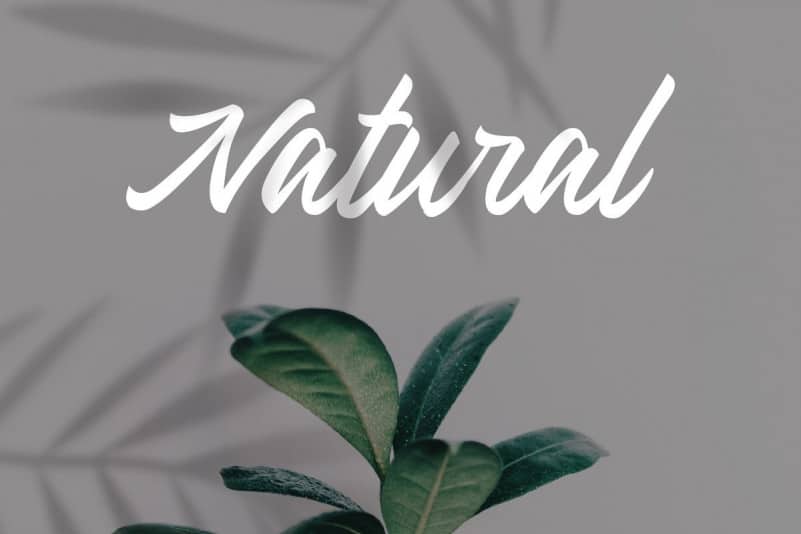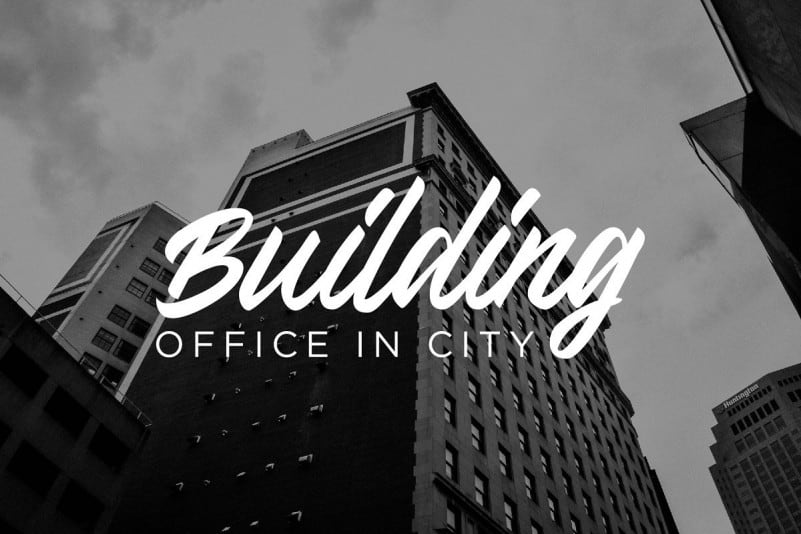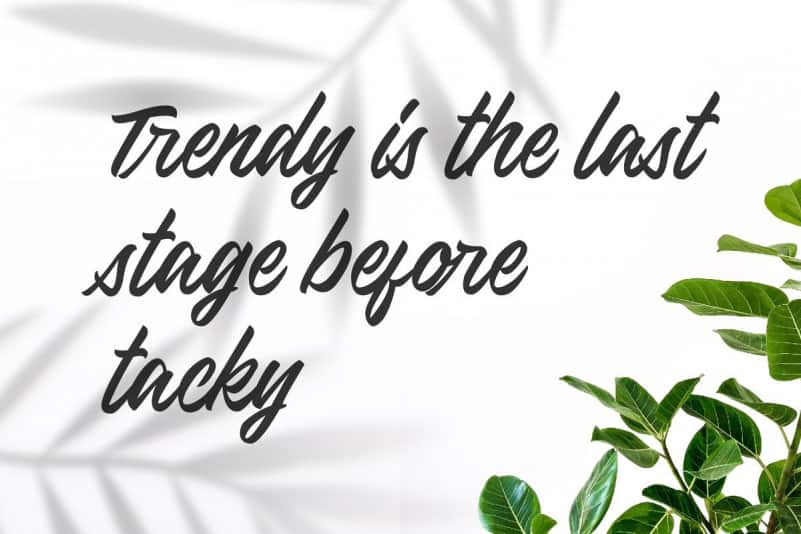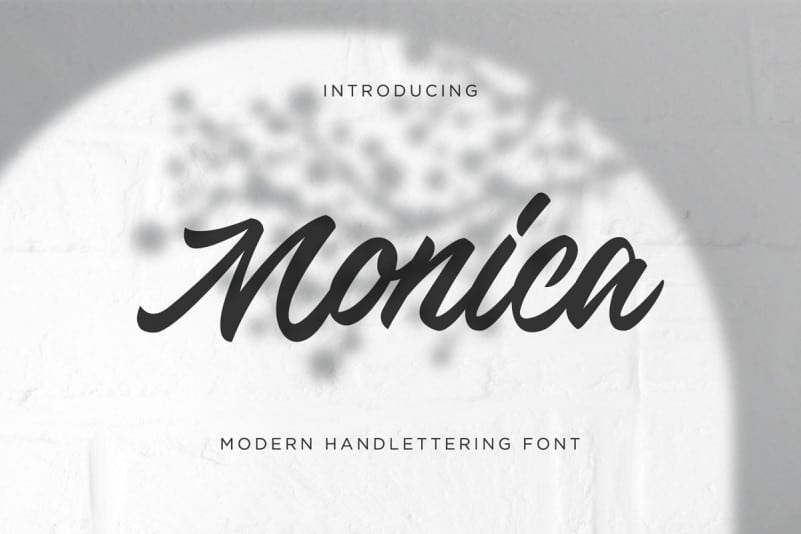
Monica Script Font
Monica Script Font is a bold handmade font created by desplus of beautiful bold typeface with an authentic touch. This font inspired by beauty of woman with all their softness make this font looks sophisticated classy, elegant with the softly curve could your project will looks a fabulous and amazing.